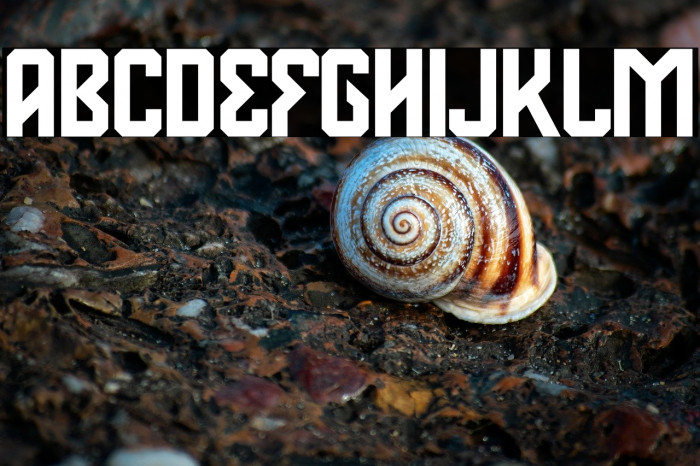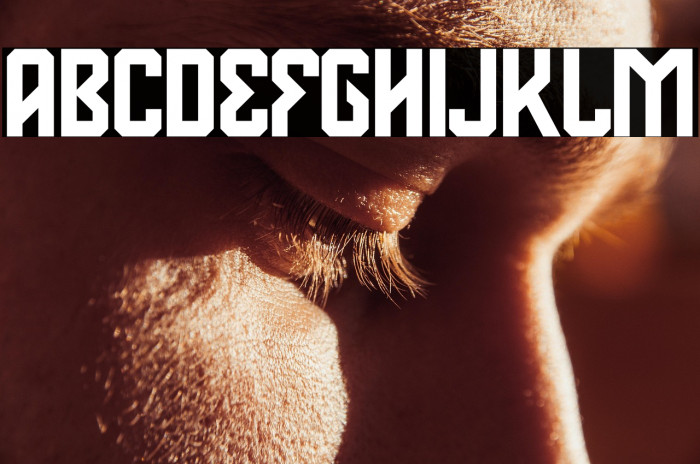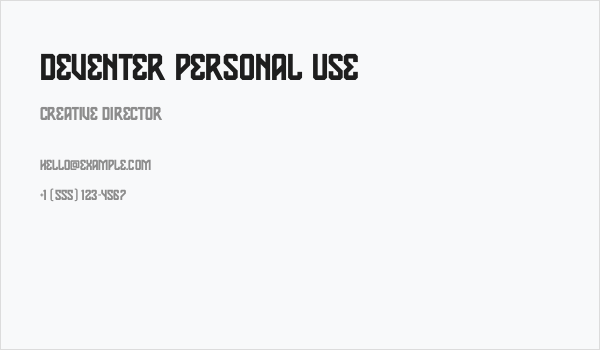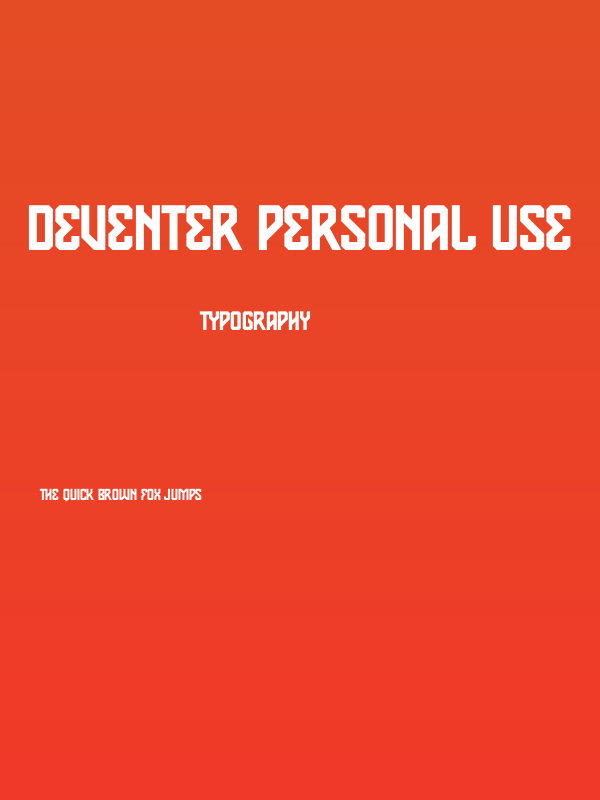
Deventer PERSONAL USE Font
Deventer PERSONAL USE Description
This font features a bold and geometric design with a strong, angular appearance. The characters are constructed with sharp edges and straight lines, giving it a modern and industrial feel. The uppercase and lowercase letters maintain a consistent style, with a uniform height that enhances readability. The numbers and special characters follow the same design principles, ensuring a cohesive look across all elements. This font's distinct style makes it suitable for attention-grabbing headlines and impactful designs.
| Proposed Projects | Ideal for branding, posters, and signage where a strong, modern presence is desired. |